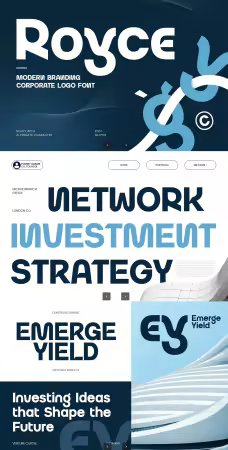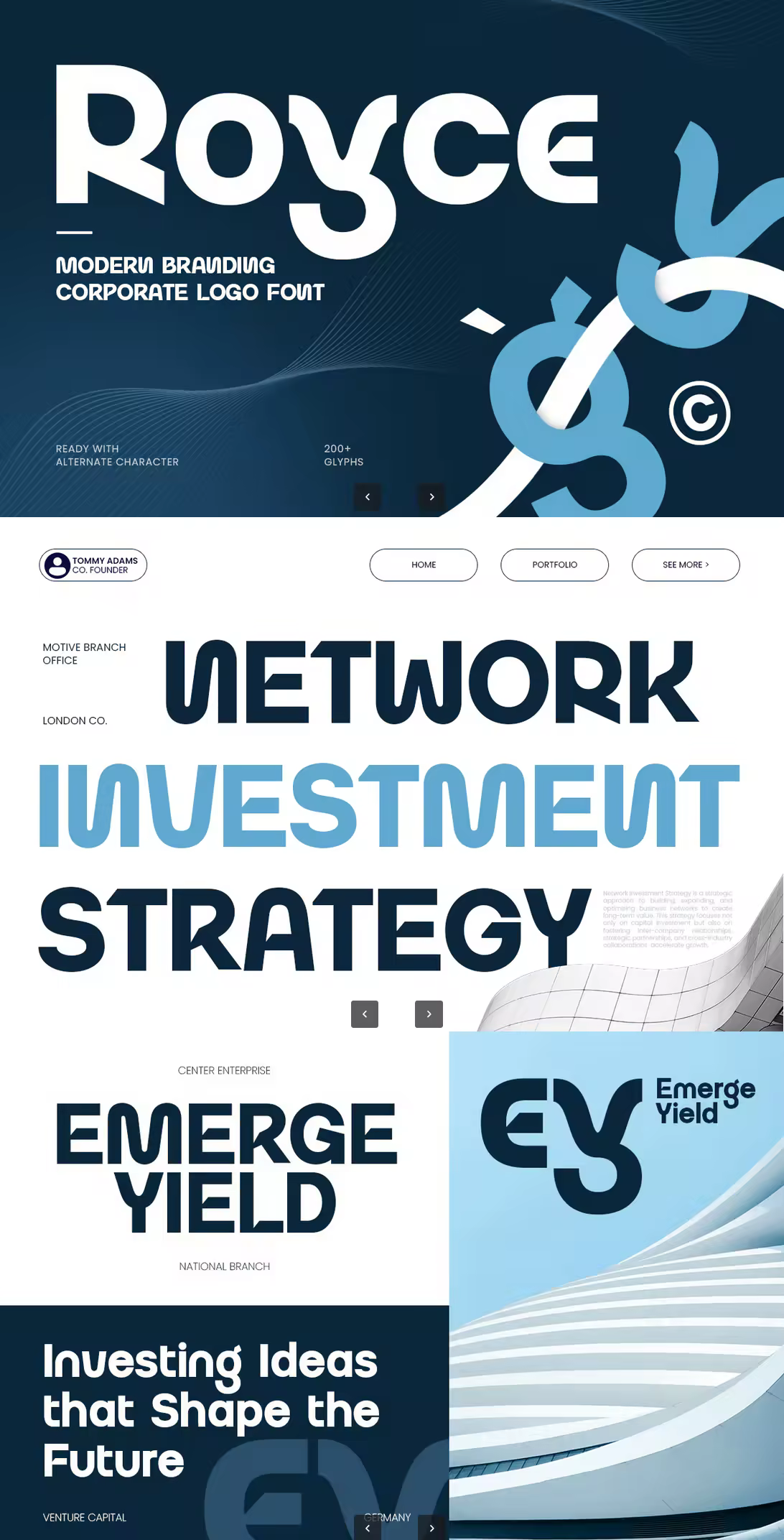
Royce is a modern branding corporate logo font built for clean, confident visual identities. With a professional tone and contemporary structure, Royce delivers a polished look that fits corporate branding, business communication, and modern brand systems—without sacrificing personality.
Designed for versatility, Royce works beautifully across logos, brand identity, company profiles, presentations, websites, UI design, and marketing materials. Its clarity and balanced letterforms make it an excellent choice for headlines, signage, product branding, and social media campaigns where readability and trust are essential.
Whether you’re designing for a startup, agency, consultancy, or established corporate brand, Royce helps you create a consistent, modern presence that feels sharp, reliable, and premium-ready.
Royce – Modern Corporate Logo Features
Clean modern letterforms with a corporate-ready personality
Ideal for logos, brand identity, business materials, and presentations
Strong readability for web, UI/UX, print, and digital advertising
Designed for modern branding, startup visuals, and professional layouts
Includes uppercase, lowercase, numerals, and punctuation
Versatile styling for consistent brand systems across media
OpenType features for flexible typography and layout control